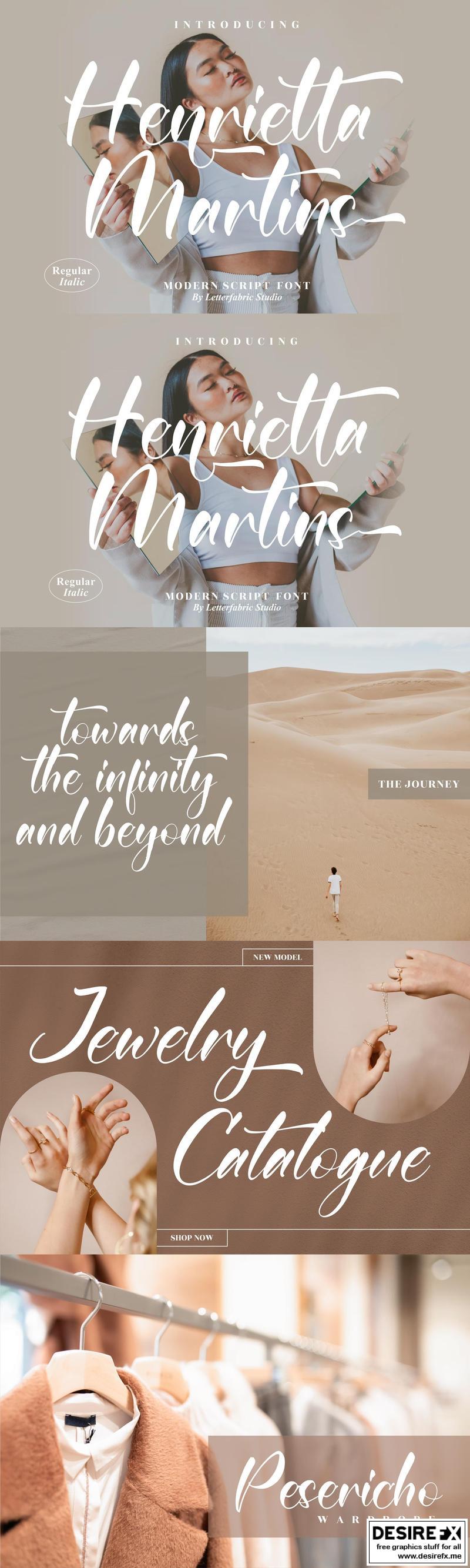
Henrietta Martins Modern Script Font LS G5JMDH8
Hi ladies & gentlemen, this is one of our fonts suitable to complement your digital and printed creative products.
This font is perfect for posters, social media posts, branding, personal projects, etc.